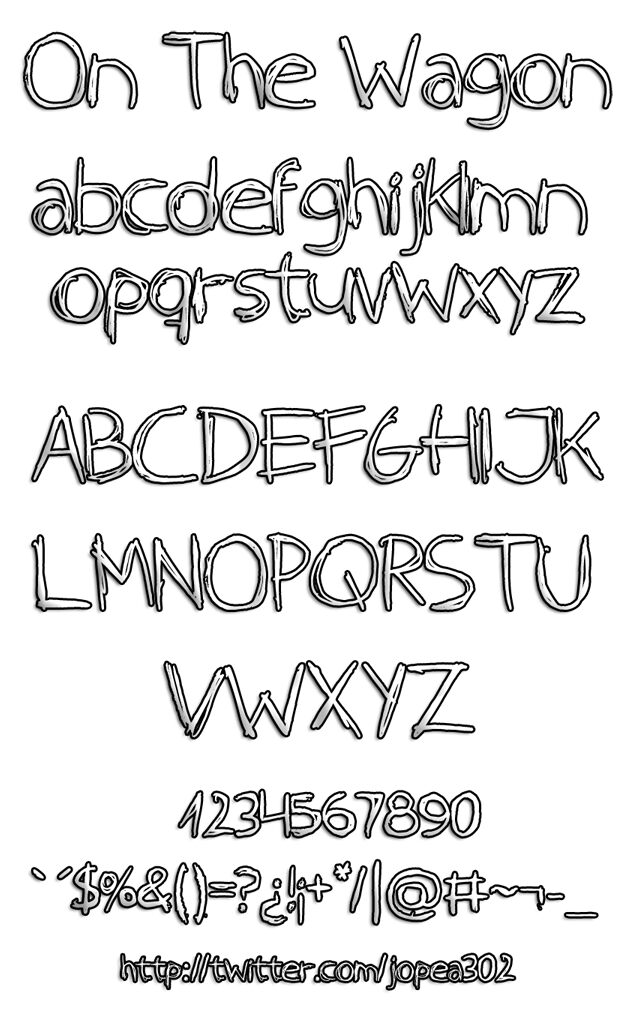
On The Wagon is a free trash-style handwritten font with tall, restless letters and a deliberately raw finish. Stroke widths jump from wiry lines to dark overlaps, and several forms look quickly retraced. Uneven angles and loose joins give the lettering the nervous pace of a hurried marker sketch.
Alternative music, photocopied graphics, and underground culture are its natural territory. It suits punk posters, album artwork, merchandise, and independent magazine covers, with concert promotion as the most convincing use for its scratched, immediate lettering.
On The Wagon